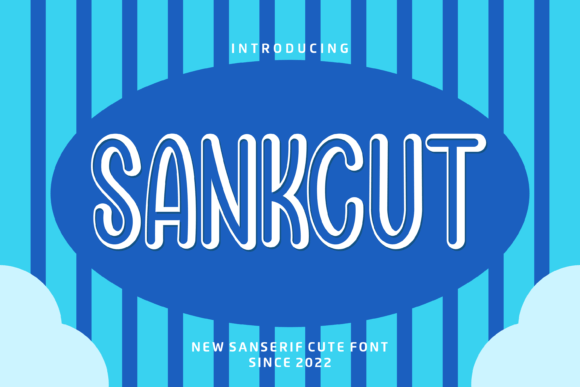
Feast your eyes on the Sankcut Font, a captivating sans serif font family that will ignite your imagination and breathe life into your creations. Stroke by stroke, Sankcut's remarkable design will transport you to a world of endless possibilities.
Immerse yourself in the allure of Sankcut's casual and modern aesthetic, where simplicity meets sophistication. This font is not just a tool; it's an expression of your individuality, a reflection of your unique style. Whether you're a seasoned designer or just starting your journey, Sankcut will effortlessly elevate your projects to new heights.
Picture this: you're crafting a slide presentation that needs to command attention. With Sankcut, your words will dance across the screen, captivating your audience with their grace and charm. Its clean lines and balanced proportions ensure that every letter, every word, every sentence is a visual masterpiece.
Sankcut is not just for slide presentations, though. Unleash its potential in logos, branding, posters, social media graphics, and even website design. Its versatility is limitless, just like your creativity.
So, why settle for ordinary fonts when you can have Sankcut? Experience the difference it makes when you choose a font that speaks to your soul. Sankcut is not just a font; it's an investment in your creative endeavors.
Don't let your projects be confined by the mundane. Embrace the power of Sankcut and watch as your ideas take flight. Dare to be bold, dare to be different, dare to let your creativity shine. The world is waiting to be amazed by your creations, and Sankcut is the key to unlocking your full potential.